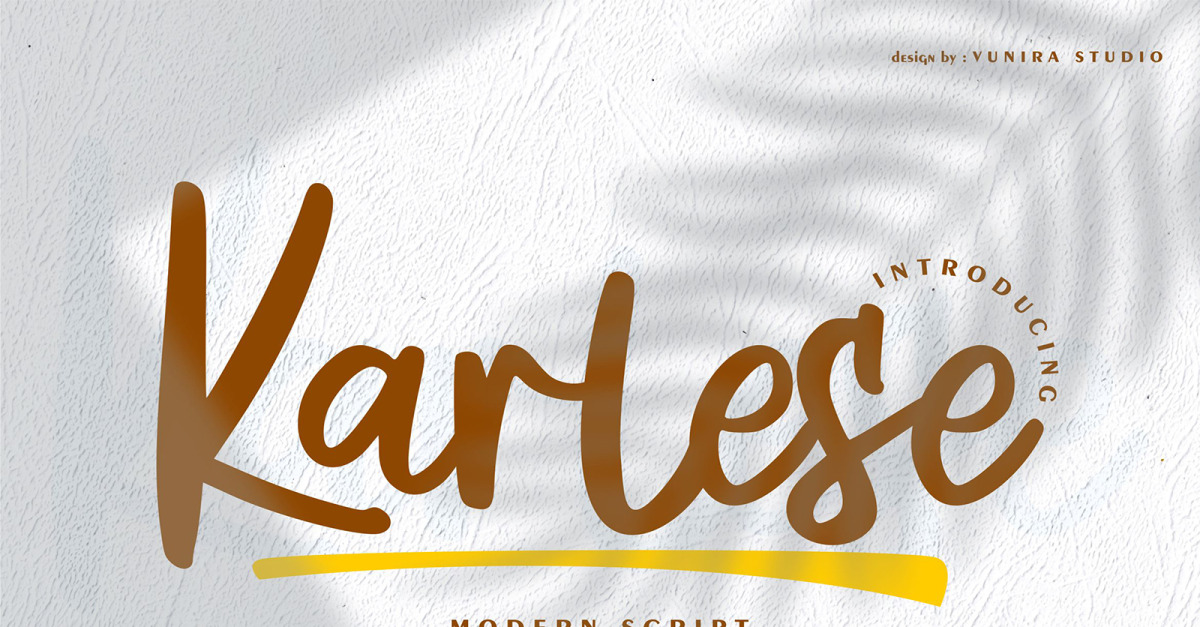
Karlese | Modern Cursive Font
**Karlese | Modern Script** with a calligraphy style, So beautiful on invitation like greeting cards, branding materials, business cards, quotes, posters, and more!